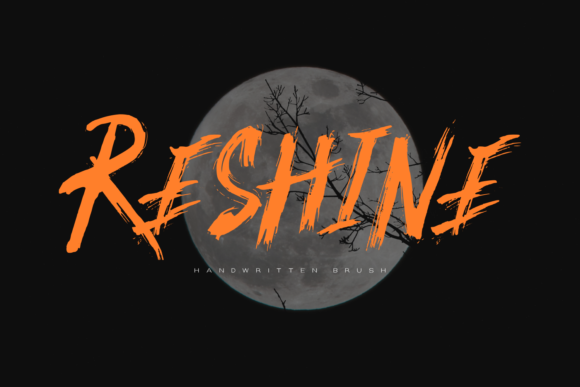
Welcome to the enchanting realm of Reshine - an unparalleled script font family that's ready to ignite your creative spirit.
With its graceful curves and captivating flourishes, Reshine embodies the essence of sophistication. It's a font that speaks volumes without uttering a single word. Its meticulously crafted characters dance across your designs, leaving an unforgettable impression on all who behold it.
Unleash your inner artist and let Reshine elevate your projects to new heights. Its versatility knows no bounds, making it the perfect choice for a myriad of creations. From captivating logos that demand attention to chic T-shirt designs that turn heads, Reshine has got you covered.
But that's not all. Reshine's allure extends far beyond its visual appeal. It's a font that embodies emotion, stirring up a kaleidoscope of feelings with every letter. Its elegant strokes evoke a sense of timeless beauty, while its playful ligatures inject a touch of whimsy.
Imagine your words taking on a life of their own, captivating audiences with their undeniable charm. Reshine empowers you to craft designs that resonate on a deeper level, forging an emotional connection that transcends the ordinary.
So, whether you're a seasoned designer or just starting your creative journey, Reshine is the font you've been searching for. Its versatility, emotional depth, and captivating aesthetics will transform your designs into masterpieces that leave a lasting impression. Dive into the world of Reshine today and discover the magic that awaits!